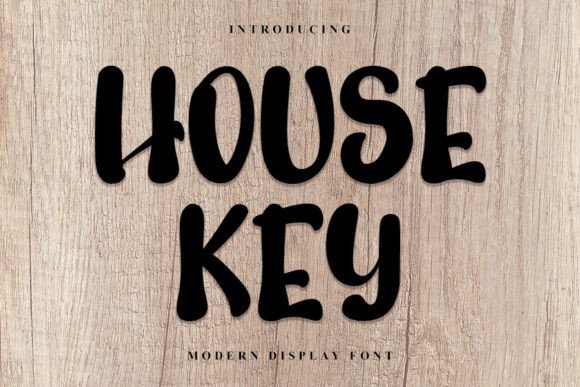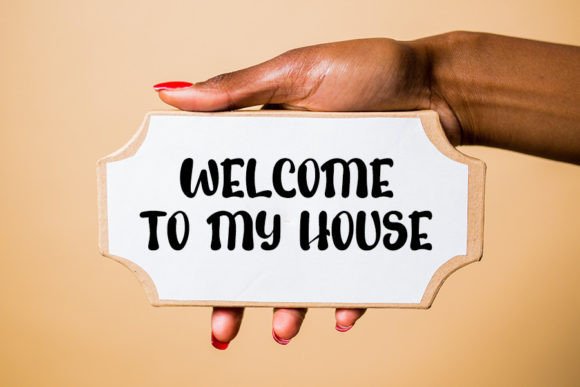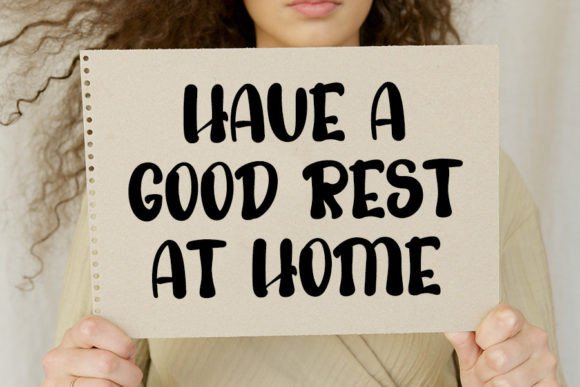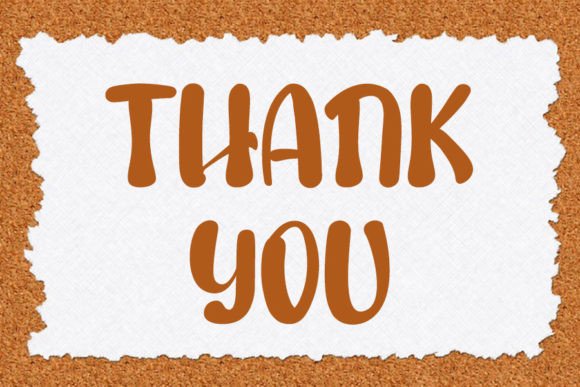
House Key Font
About House Key Font
The House Key Font Download is a stylish handwritten typeface that blends elegance with a modern flair. Inspired by timeless classic calligraphy, this font features  form and balance, making it an ideal choice for both personal and professional projects. Its graceful strokes add beauty and ensuring your designs stand out with character.
House Key has been carefully designed to achieve balance and variation. Each letter flows naturally, maintaining readability while creativity. This makes it versatile enough to use across digital, print, and work. With its contemporary atmosphere, the font is a perfect addition to any collection.
Features of House Key Font
• Handwritten calligraphy style with modern touches
• Smooth, polished curves that enhance readability
• Balanced structure for versatile use
• Elegant and contemporary design for modern projects
• Wide compatibility across print and digital platforms
Best Uses for House Key Font
• Logos and Branding – Create professional and elegant brand identities
• Wedding Invitations – Add charm and romance to event stationery
• Greeting Cards – Personalize messages with warmth and sophistication
• Product Packaging – Make labels and tags visually appealing
• Social Media Graphics – Enhance posts, banners, and quotes
• Editorial Design – Great for magazine titles and headlines
• Event Posters – Stylish enough for impactful designs
Designers appreciate the House Key Font Download because it balances tradition and modern. While it carries the timeless elegance of calligraphy, it also delivers the freshness of a contemporary handwritten style. Unlike overly ornate fonts, House Key stays versatile and easy to read, making it for diverse projects.
For businesses, the font communicates sophistication and confidence. For personal projects, it adds an approachable, elegant touch. Whether used for invitations, branding, or packaging, House Key adapts to your creative needs.
The House Key Font Download is a stylish handwritten script that combines elegance with versatility. From branding and packaging to wedding invitations and digital design, this font adds beauty, and a modern edge to every project.